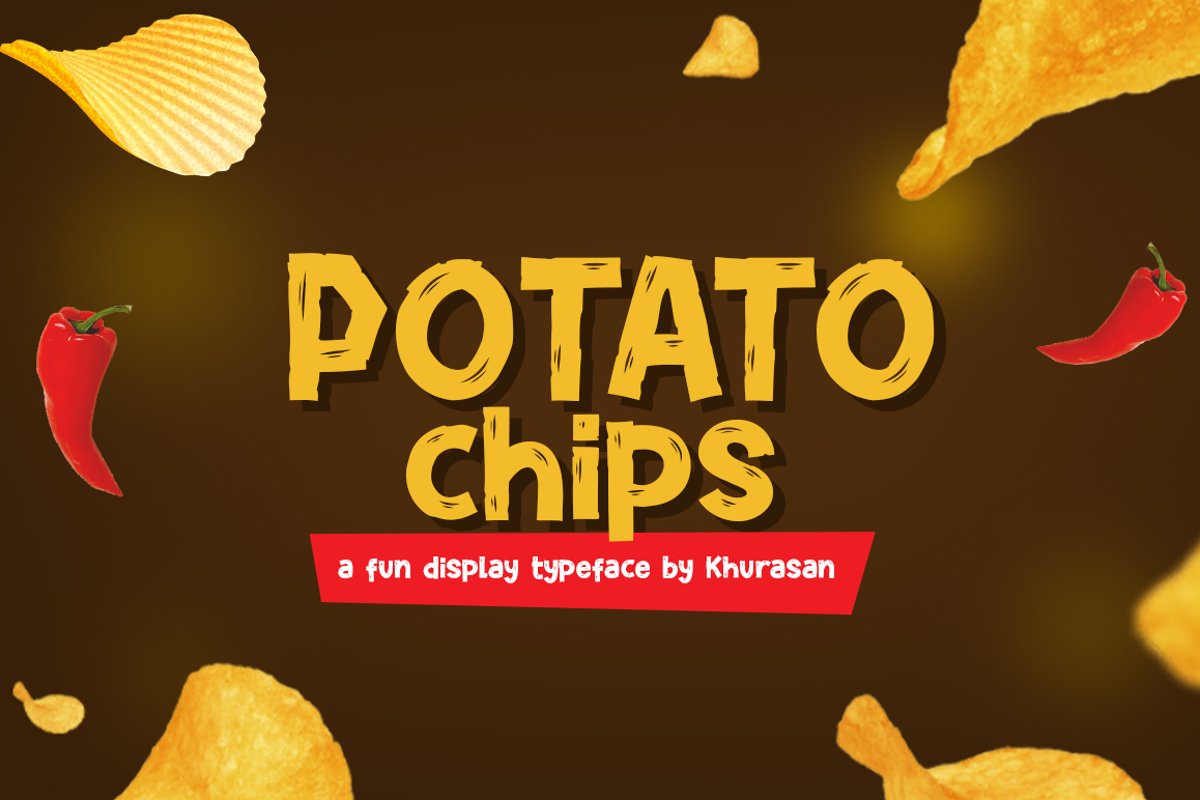
Potato Chip
Potato Chips
Introducing, Potato Chips font a bold display typeface with cheerful theme for your fun project. Potato Chips font support multilanguage. Potato Chips font suitable for logo, branding, greeting card, poster and any design that you create.